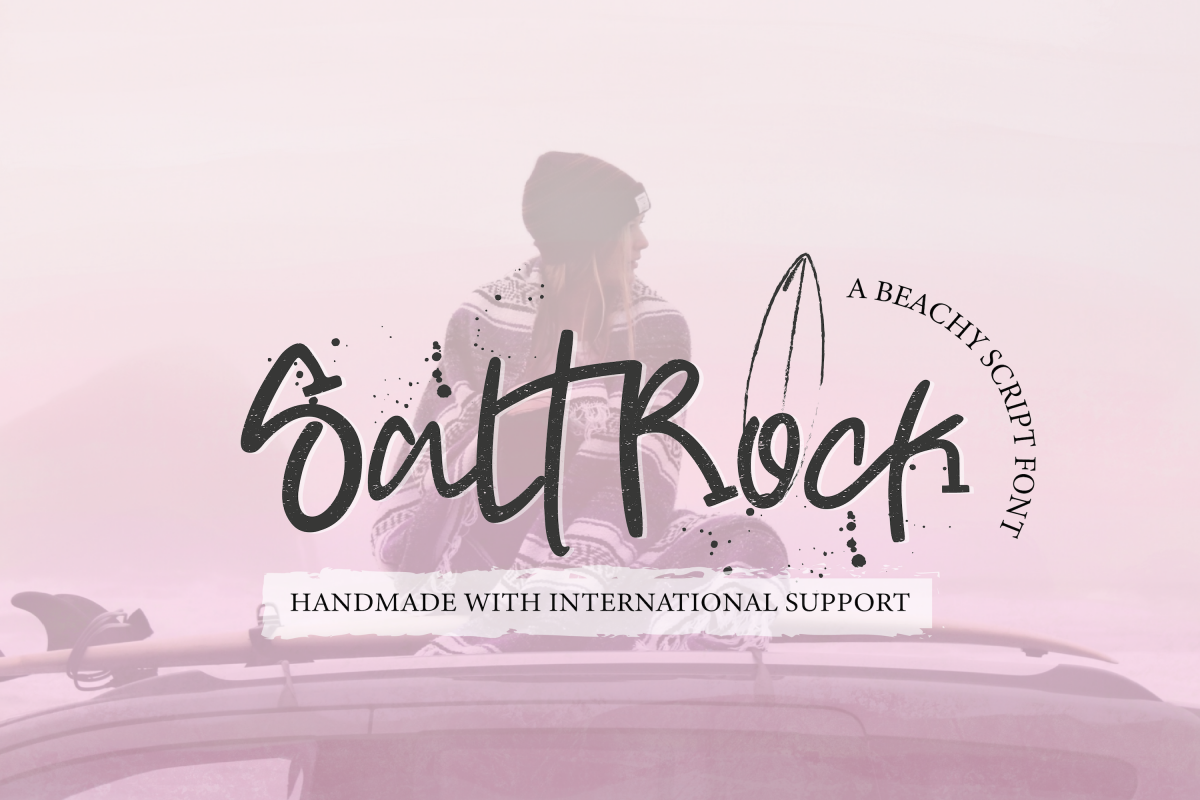
SaltRock - Beachy Script Font
SaltRockScript
Add a "beachy" vibe to your design with this fun font.
SaltRock - A vibey, fresh new handwritten brush script...with a touch of class, and of course, some fabulous extras!
This hand-lettered brush script typeface was made to give a realistic hand drawn look to your work. Use SaltRock typeface to make logos, posters, t-shirt designs or anything that requires that a bit of flair.
SaltRock includes:
• Multilingual Language support
• Alternative characters
• Contextual alternatives
• 50 Ligatures
• And as a added bonus, a set of 49 vectors and textures to add to that beachy vibe to your design.